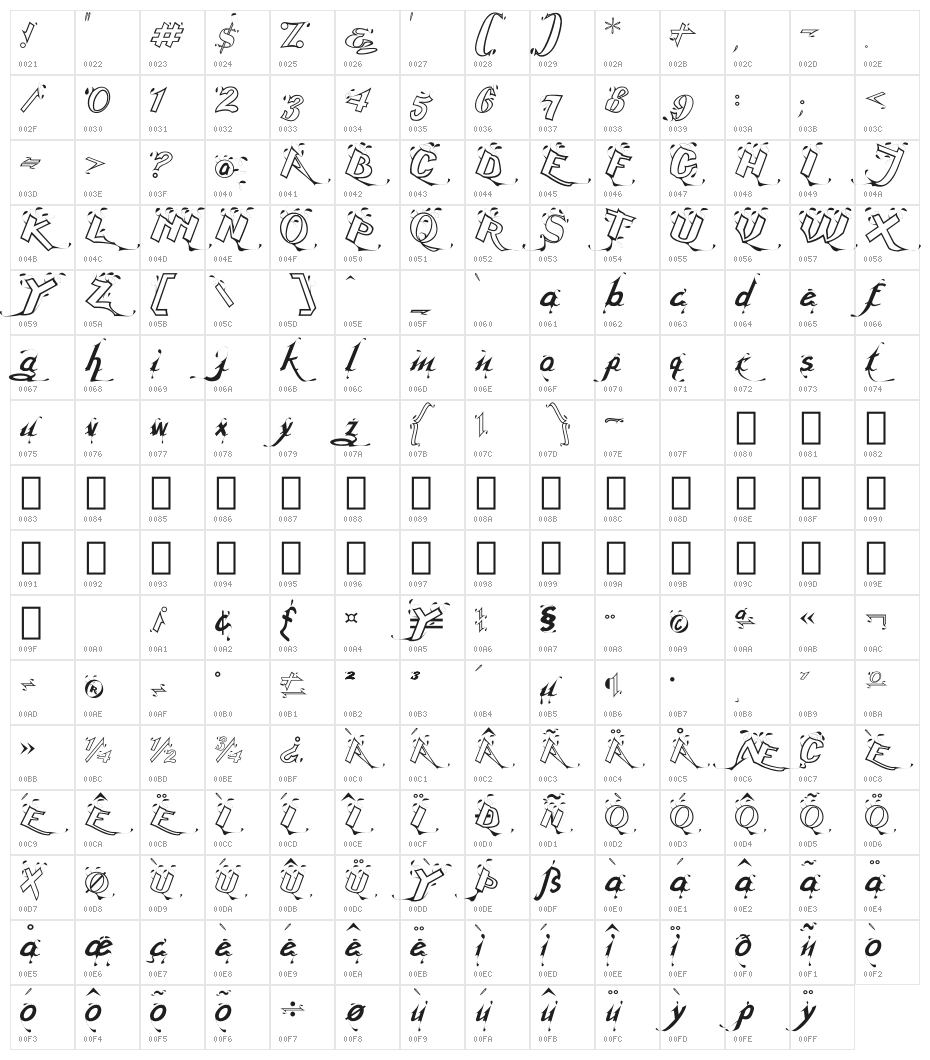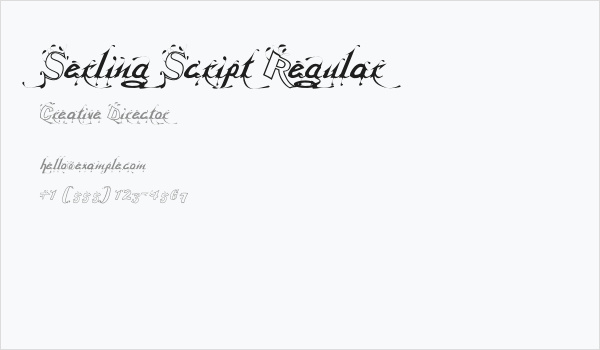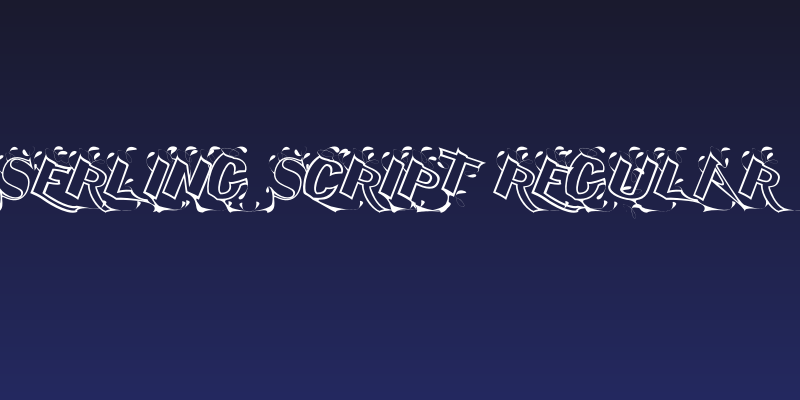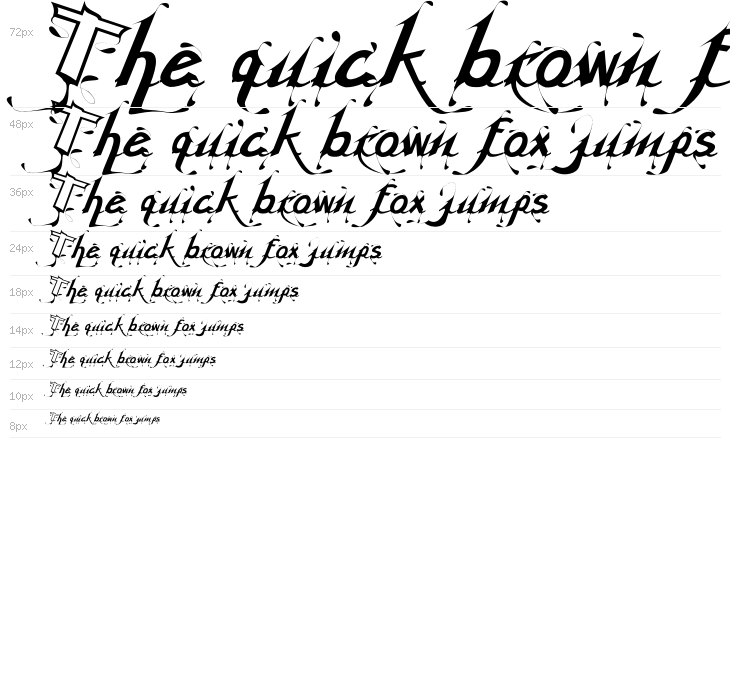
Serling Script Regular Font
Serling Script Regular Description
This font features a dynamic and flowing script style, characterized by its elegant and cursive letterforms. The uppercase letters exhibit a bold and confident presence, while the lowercase letters maintain a graceful and fluid appearance. The numerals are uniquely styled, complementing the overall aesthetic with their artistic curves. Special characters are intricately designed, adding a touch of sophistication. The font's design is reminiscent of classic calligraphy, with a modern twist that enhances its versatility. Its intricate details and stylish flair make it suitable for a variety of creative applications.